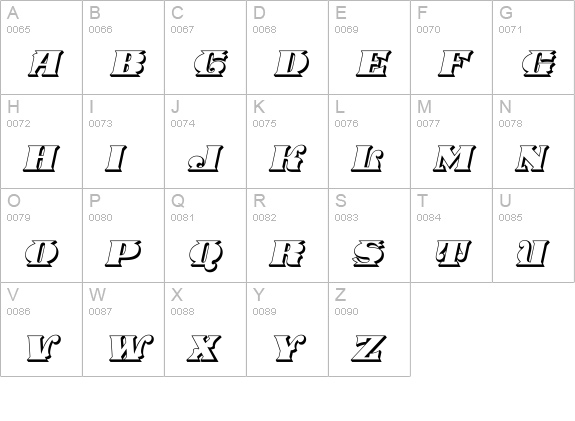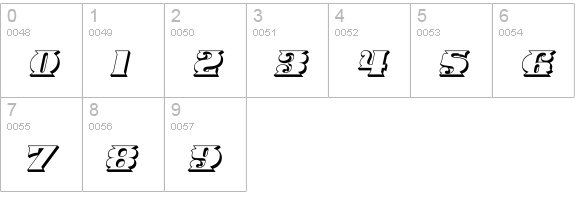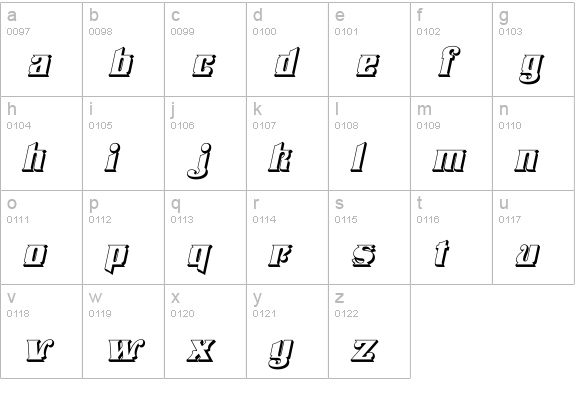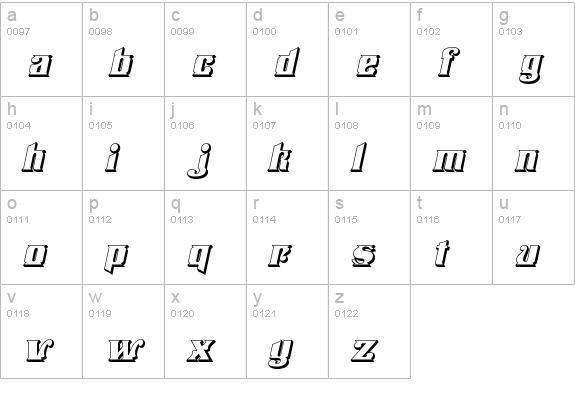
Stampede Open Italic Font Details
Stampede Open Italic is a distinctive, italic variant in the Stampede typeface family \xE2\x80\x94 well suited to design and typography projects.
Introducing the captivating Stampede Open Italic font, a stunning typeface that effortlessly combines elegance and modernity. Designed with meticulous attention to detail, Stampede Open Italic is the perfect choice for those seeking a versatile and stylish font that captures attention and leaves a lasting impression. This font's sleek and slanted design adds a touch of sophistication to any project, whether it be for branding, packaging, advertising, or editorial purposes. Its italicized form exudes a sense of dynamism and movement, making it ideal for conveying a sense of energy and excitement. Stampede Open Italic encompasses a wide range of characters, including uppercase and lowercase letters, numerals, punctuation marks, and special symbols. Each glyph has been carefully crafted to ensure seamless legibility and harmonious proportions, ensuring that your message is effortlessly conveyed to your audience. One of the most appealing aspects of Stampede Open Italic is that it is available for free download at FontsMarket.com. This means that you can access this incredible font without any financial constraints, allowing you to bring your creative visions to life without any limitations. With its bold and expressive nature, Stampede Open Italic is sure to become an invaluable asset in your design arsenal. Whether you are a professional graphic designer or an aspiring creative, this font offers endless possibilities for creating visually stunning and impactful designs. So why wait? Download Stampede Open Italic today from FontsMarket.com and unlock the full potential of this remarkable font. Elevate your projects to new heights with its distinctive style and make a lasting impression on your audience. Embrace the freedom to create and let Stampede Open Italic be your creative companion.